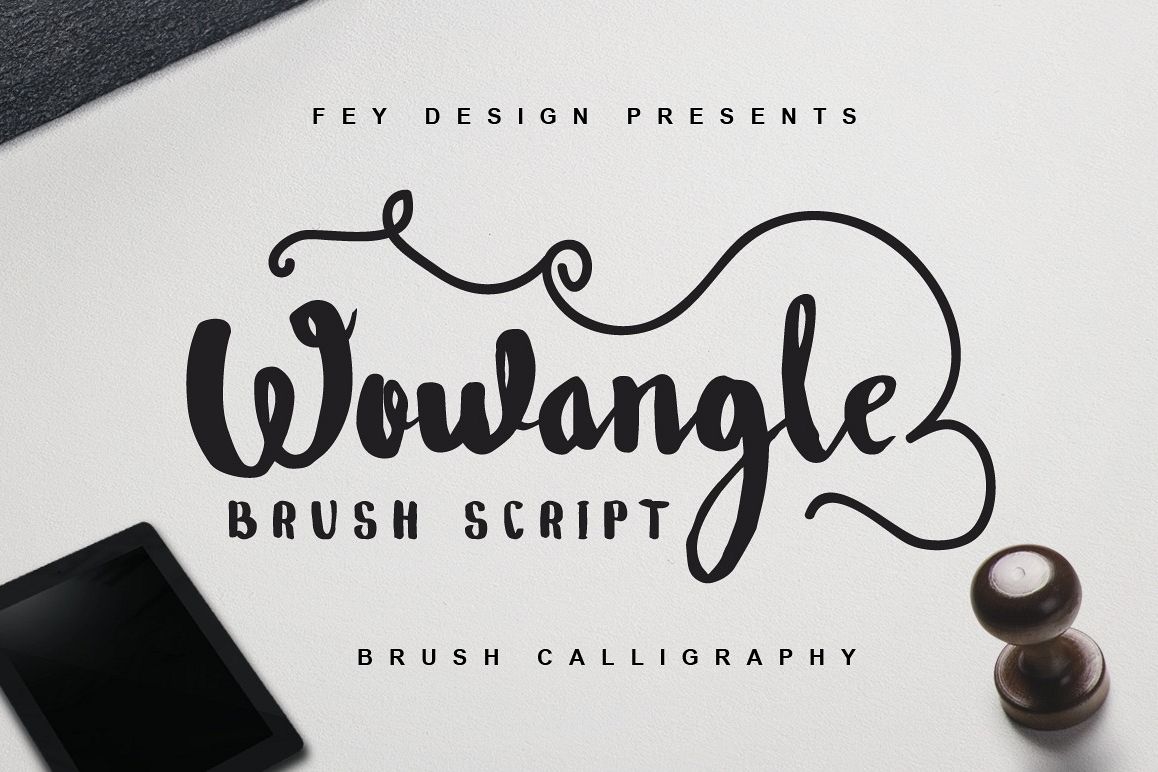
Wowangle Brush Script (Bonus Font)
Wowangle Sans.
Wowangle Brush.
Wowangle Ornament.
Wowangle Swash Lowercase.
Wowangle Swash Uppercase.
Wowangle Titling.
This is Handrawn Brush Font, Modern Vintage Calligraphy style, Suitable for design, element design, wedding, event, t-shirt, logo, badges, sticker, and awesome work, etc...
- Combination alternative ligature fonts
- Standard Ligatures, Stylistic Set, Multilanguage Characters
- Modern Calligraphy Typeface
- Unique style fonts
- Easy customize